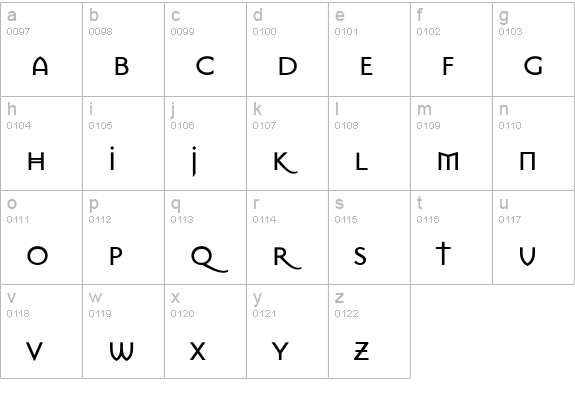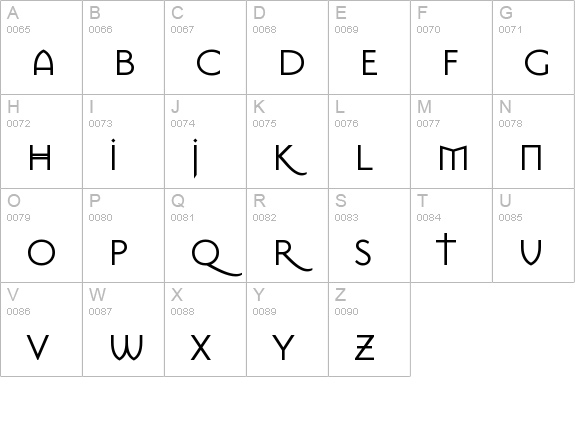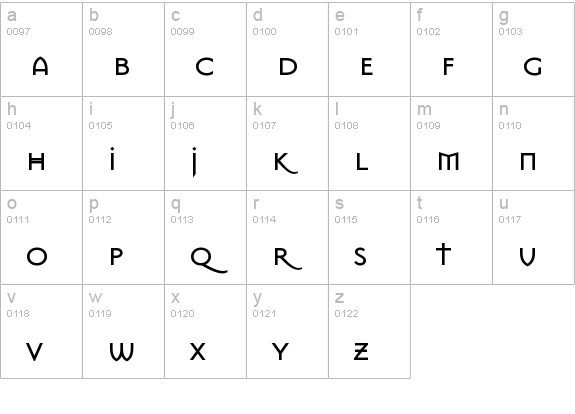
MasonSans Font Details
MasonSans is a modern and versatile font that exudes elegance and sophistication. With its clean lines and sleek curves, this typeface is perfect for a wide range of design projects, from branding and logo design to packaging and editorial layouts. The smooth and balanced letterforms of MasonSans create a harmonious visual experience, making it a great choice for both digital and print applications. One of the standout features of MasonSans is that it is free to use. This means that whether you're a professional designer or a casual enthusiast, you can easily incorporate this font into your projects without any licensing restrictions. It's a font that truly empowers creativity and allows you to express your unique vision with ease. To access MasonSans, simply head over to FontsMarket.com, where you can freely download this exceptional font. FontsMarket.com offers a wide selection of high-quality fonts, and MasonSans is no exception. It's a font that will elevate your designs and give them a professional touch. Whether you're working on a corporate identity project, a magazine layout, or a website design, MasonSans will be the perfect companion. Its versatility and timeless appeal make it suitable for a variety of design styles and contexts. So, why wait? Discover the beauty and functionality of MasonSans today and take your designs to the next level.